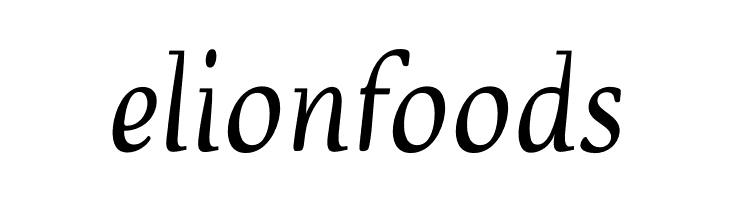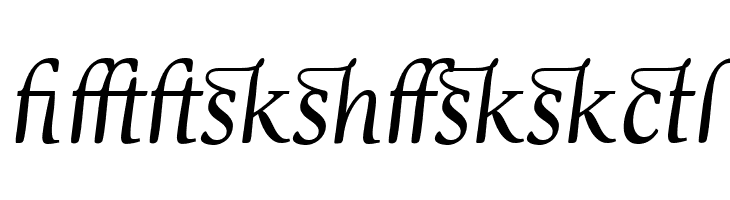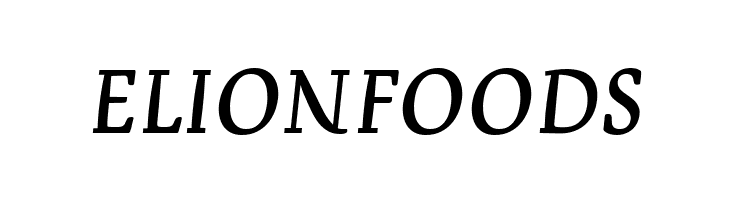
Alice in Wonderland Font
Highly detailed illustrative font based on Alice in Wonderland scenes.
Grim Natwick Betty Boop Font
Whimsical cartoon character with bold black and white styling.
Apoux Font
A rugged, textured font with a natural, distressed appearance.
Devroye Font
Elegant serif font with a slight italic slant, perfect for formal and creative uses.
Grim Natwick Betty Font
Whimsical, cartoon-inspired font with playful, rounded letterforms.
Devroye SCOSF Font
A classic serif font with elegant italics and refined proportions.
WaaibergSM Font
A whimsical, decorative font with playful swirls and curls.
HaydenPanettiereBats demo Font
Portrait-based dingbat font with stylized black-and-white faces.
Outstanding Font
A bold, decorative font with a three-dimensional shadow effect and prominent serifs.
AmyBats 5 Font
A display font using portrait images for each character.
Botan Font
A decorative font with botanical elements intertwined with each character.
BeautyMarks Font
A display font featuring artistic female silhouettes as characters.
MuchaFrenchCapitals Font
A bold, decorative font with Art Nouveau influences and intricate detailing.
Devroye Unicode Font
A classic serif font with an elegant italic slant and medium contrast.
AParliamentofOwls2 Font
A display font composed of detailed owl illustrations for each character.
AmyBats1 Font
A pictorial font using stylized portraits for each character.
KleinKarpets Font
Abstract, optical illusion-inspired decorative font with warped geometric patterns.
AmyBats2 Font
Photographic portrait-based decorative display font.
GrimNatwickBettyBoop Font